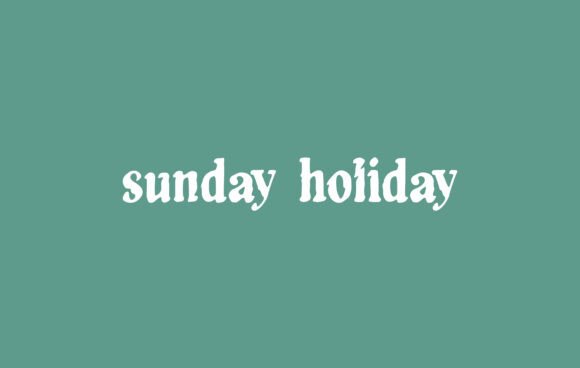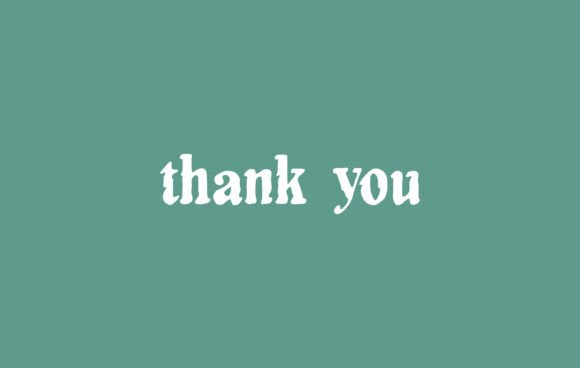
The Emmett Font: A Romantic Touch for Your Creative Projects
I’ll never forget the time I was working on a wedding invitation design project, and my client asked me to create a custom font that would match the romantic and whimsical feel of their special day. I spent hours scouring the internet for the perfect font, but nothing seemed quite right. That’s when I stumbled upon the Emmett font, and it instantly became my go-to choice. In this article, I’ll share with you why I’m obsessed with this authentic handwritten font and how you can make the most of its beautiful features in your own creative projects.
A Personal Review of Emmett Font
- ✨ Romantic and Whimsical Feel: Emmett font has a unique, handcrafted quality that adds a touch of romance and whimsy to any design.
- ✅ Legibility: Despite its handwritten nature, Emmett font is surprisingly legible, making it perfect for both title and body text.
- ✅ Versatility: This font is incredibly versatile and can be used for a wide range of design projects, from magazine headlines to social media graphics, branding, wedding invitations, and more.
While Emmett font is an amazing choice for many design projects, there are a few quirks to be aware of:
- ⚠️ Limited Use in Small Sizes: While Emmett font is generally legible, it may not be the best choice for very small font sizes or body text in certain contexts.
- 🤔 Kerning Issues: As with any font, you may need to adjust the kerning to ensure that the text looks balanced and visually appealing.
- Experiment with OpenType features, such as stylistic alternates, to add visual interest to your design.
The Story Behind Emmett Font
Emmett font was designed with the intention of creating a beautiful, handwritten font that would capture the essence of romance and whimsy. The designer aimed to create a font that would be both elegant and approachable, making it perfect for a wide range of creative projects. While the exact story behind the font’s creation may be unknown, it’s clear that Emmett font has been crafted with love and care.
Q: What type of projects is Emmett font best suited for?
A: Emmett font is perfect for a wide range of design projects, including magazine headlines, social media graphics, branding, wedding invitations, and more.
Q: Is Emmett font legible?
A: Yes, Emmett font is surprisingly legible, making it suitable for both title and body text.